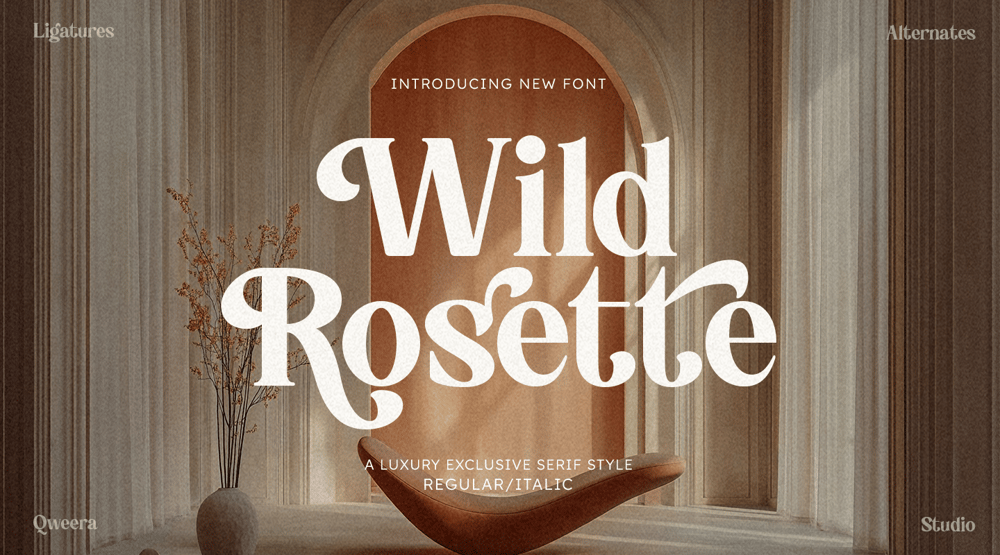
Wild Rosette Font Family was designed by Idhham Cholid Rikzano Yahya and published by Qweera Studio. Wild Rosette contains 2 styles and family package options. Wild Rosette is a unique serif typeface with an elegant modern retro touch. This font comes in two styles, Regular and Italic, and is equipped with stylish alternates and ligatures to enhance your creative designs effortlessly.Perfect for a variety of design needs, including branding, posters, magazines, and premium print materials. Its modern retro character adds a unique and aesthetic feel, making it ideal for creating classy and captivating designs.Wild Rosette ensures flexibility for every project, delivering stunning and professional design results. Transform your ideas into outstanding creations with Wild Rosette!Here’s what you get: Regular & Italic All Multilingual symbol Opentype features ( ligature, alternate ) Accessible in the Adobe Illustrator, Adobe Photoshop, Adobe InDesign, even work on Microsoft Word. PUA Encoded Characters – Fully accessible without additional design software. Multilingual character supports : (Afrikaans, Albanian, Catalan, Croatian, Czech, Danish, Dutch, English, Estonian, Finnish, French, German, Hungarian, Icelandic, Italian, Lithuanian, Maltese, Norwegian, Polish, Portuguese, Slovenian, Spanish, Swedish, Turkish, Zulu)Follow my shop for upcoming updates, and for more of my work, If you need a custom license or have questions please visit our website: www.shakirastudio.comThank you!Qweera Studio